“We did this for Swedish House Mafia”
“Cool, lol, haha”
“Hayjaaargh!”
“Wow, that’s so cool”
“As a Swedish dj I respect what they have done. Their sound is really professionally done.”
The response you get from collagues in the fields of type, design, music and fashion might reawake your thinking of what we just did. The common “Helsinki mentality” (note: very subjective) would to think that we just did what someone asked and things just rolled as usual and that’s about it.
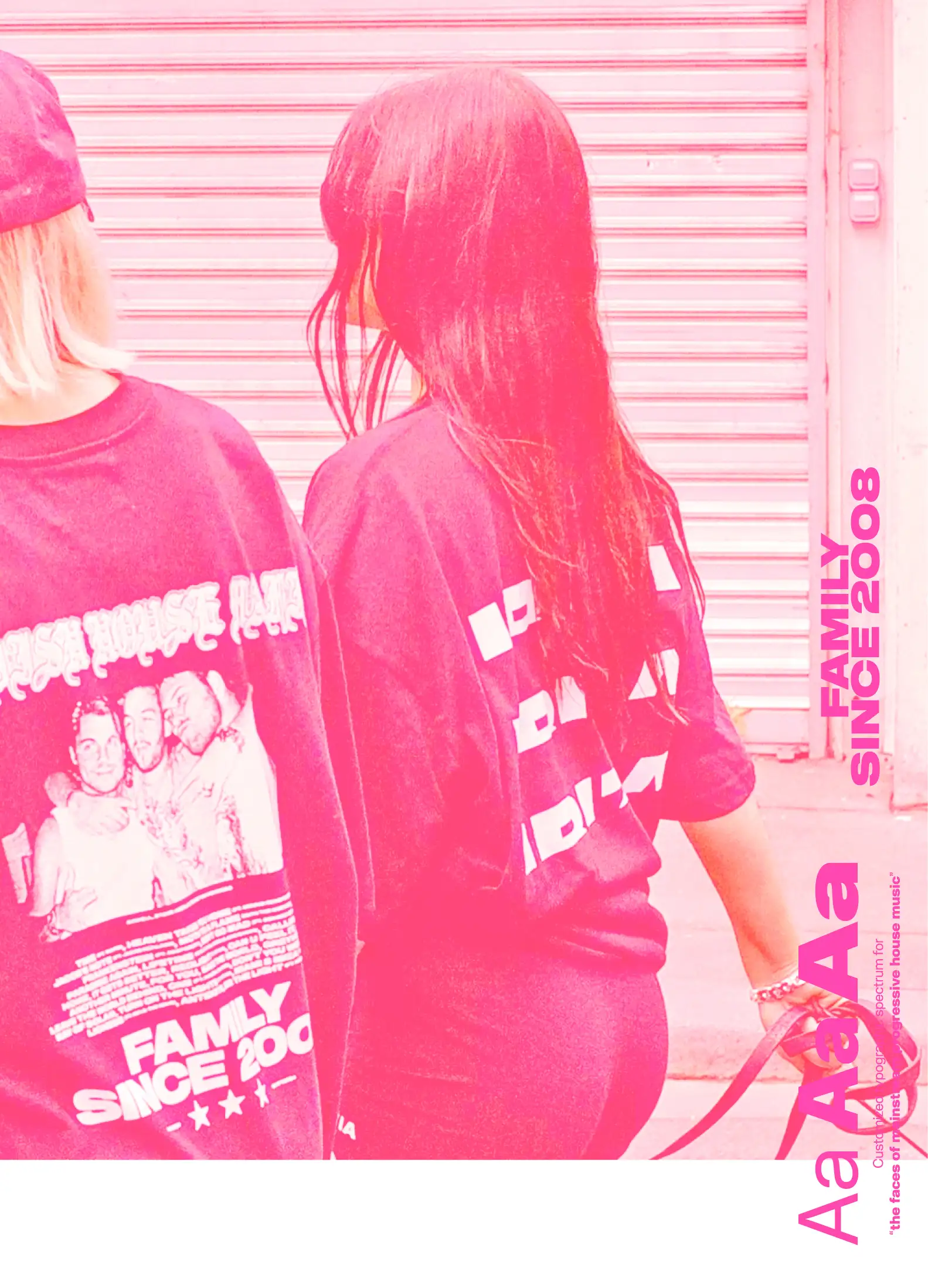
But underneath this grey shadow of “It is what it is”, we must live, discover and shatter a tear or two.
As designers of letters we are in touch with the details, the visual construct of the end emotion, but we dont have a clue about the end emotion. We rely on briefs, discussions, mind memories, what we have seen and try to catch what we might see.
“Simple, classic, modernist, clean”, is there space inbetween, or space outside, where to go when someone asks for cleanliness? A whole life spent trying to rip yourself apart from the sterile, simple, clean, dogmatic freedom of modernist purity. Subcultured in american hardcore of the late 80s or mind juggling through a prog revival, all ideas of the simple is beautifull thrown out of the teenagers room.
How to fuse through this? How to dance when all you get is a black t-shirt and black pants? Is someone looming or having the time of their lives regardless?
Typeface: SHM Sans
Designers: Niklas Ekholm & Jaakko Suomalainen